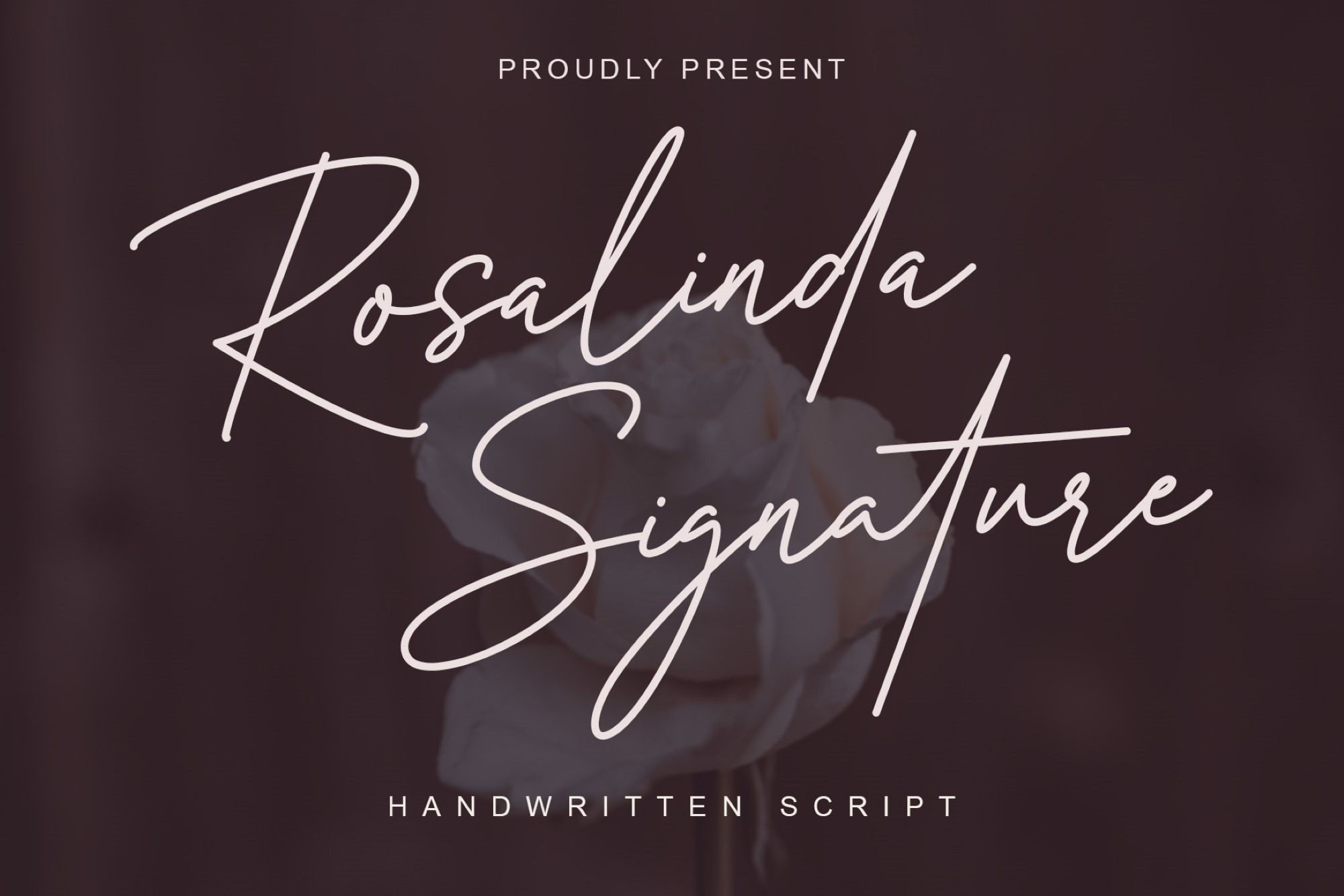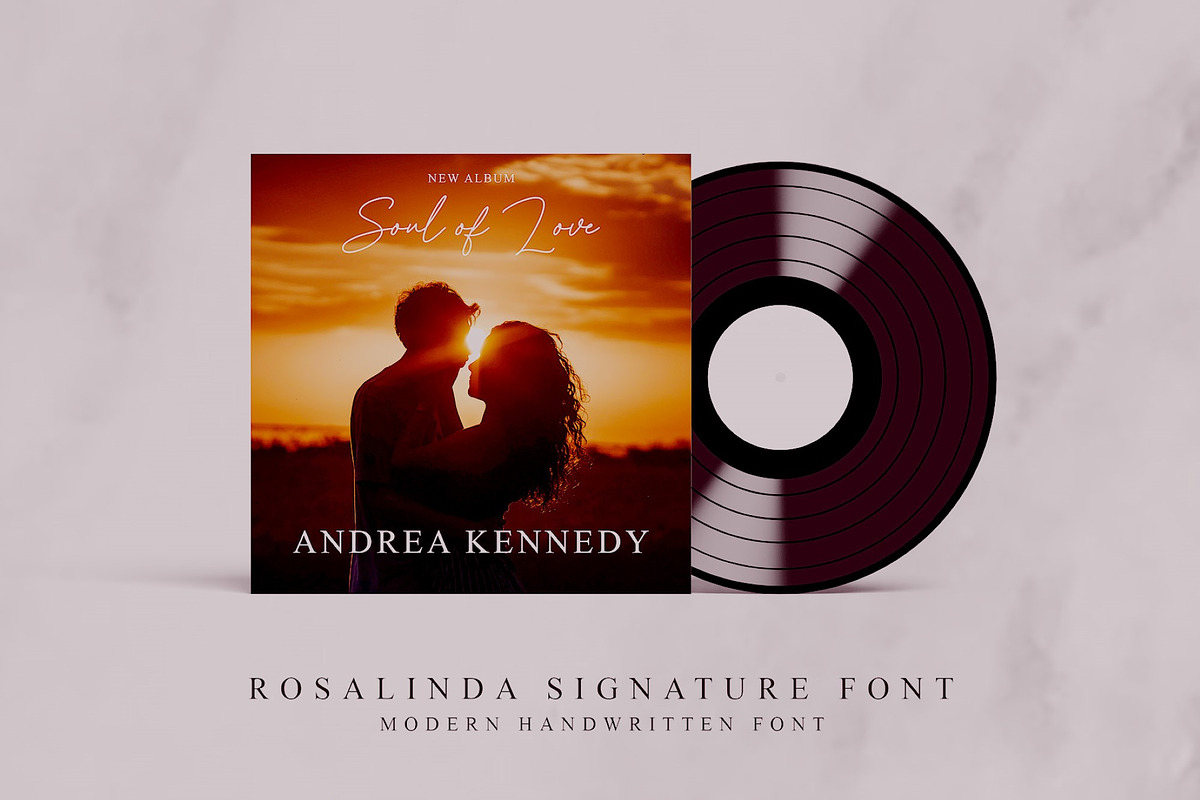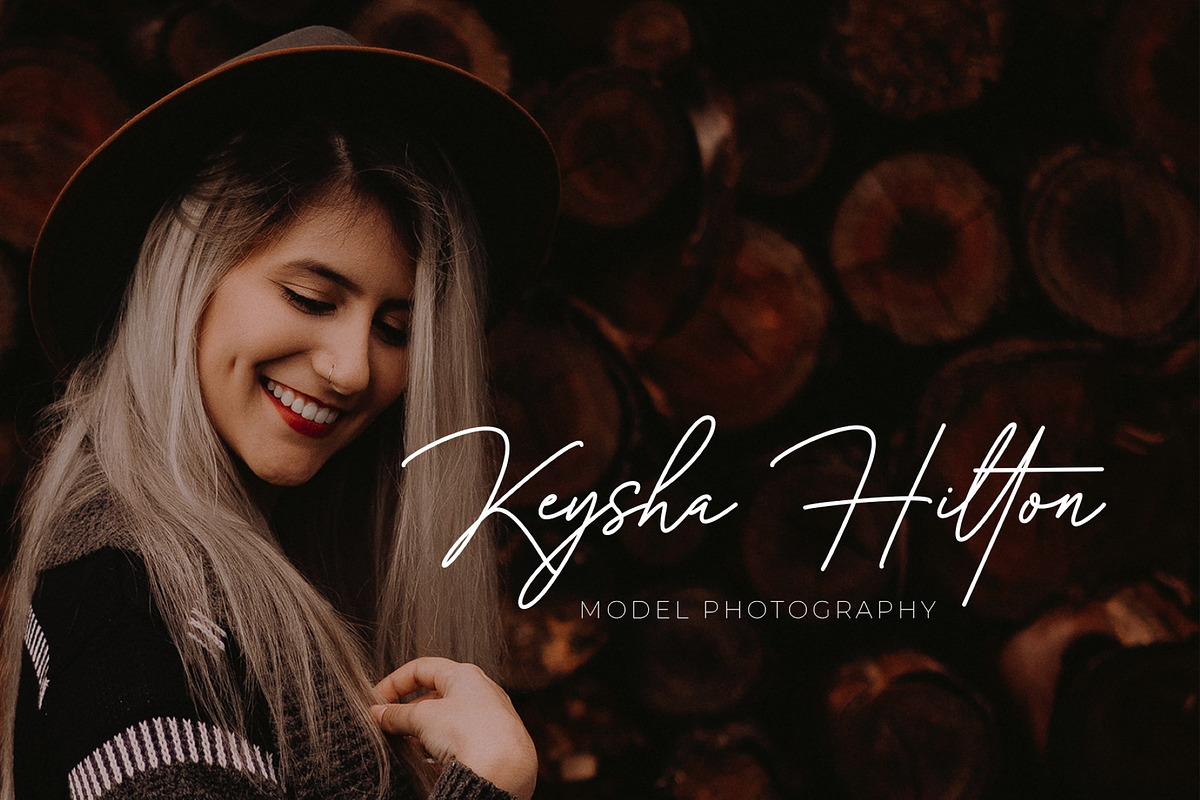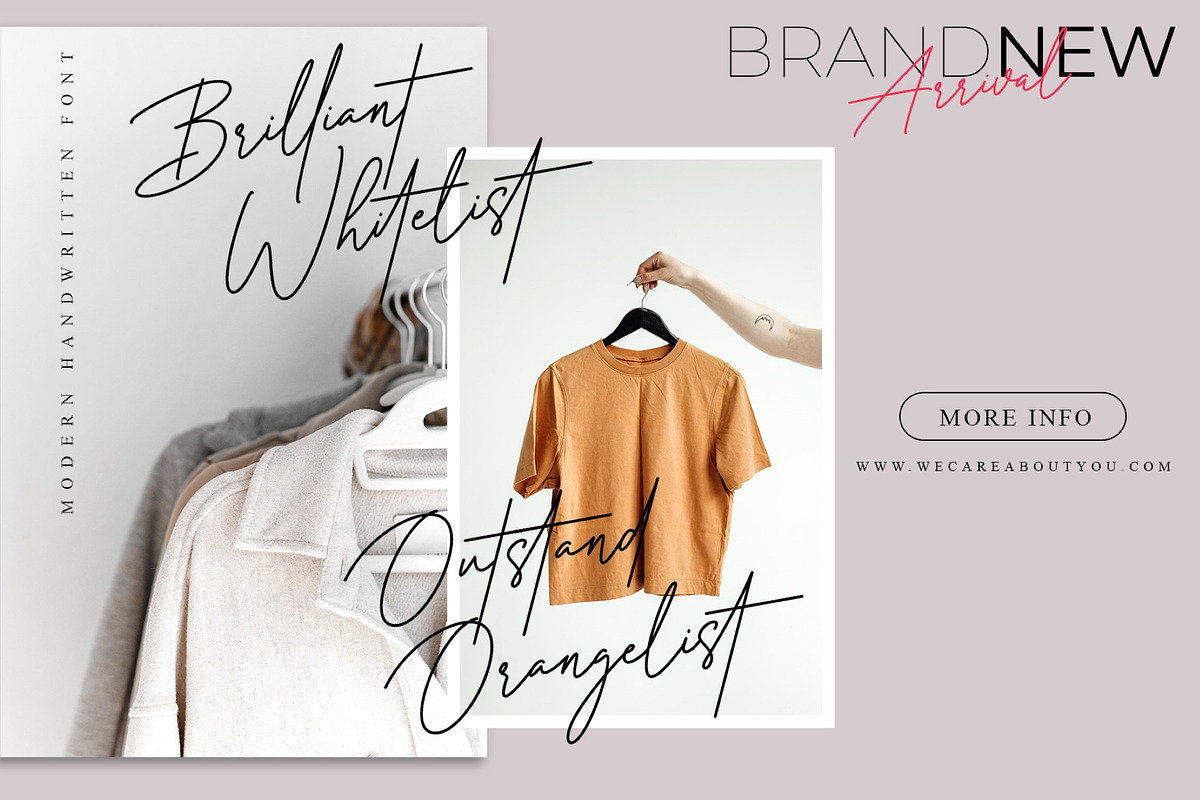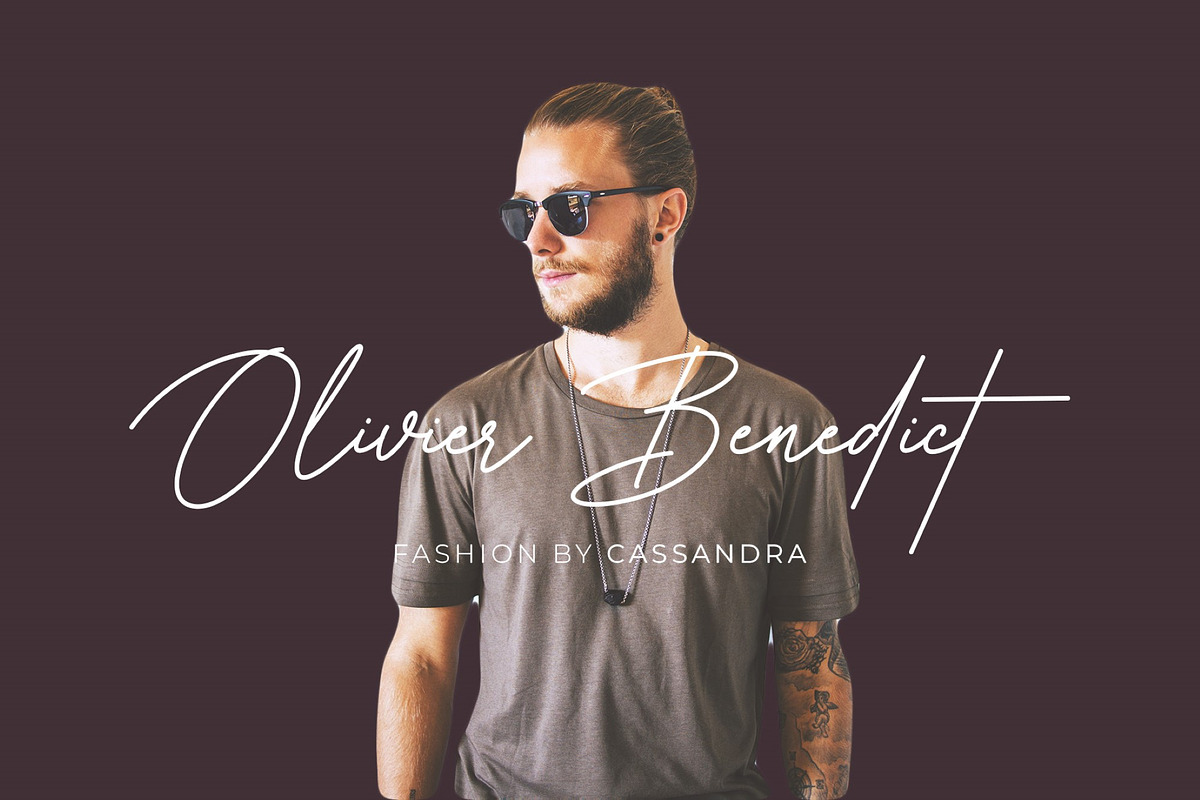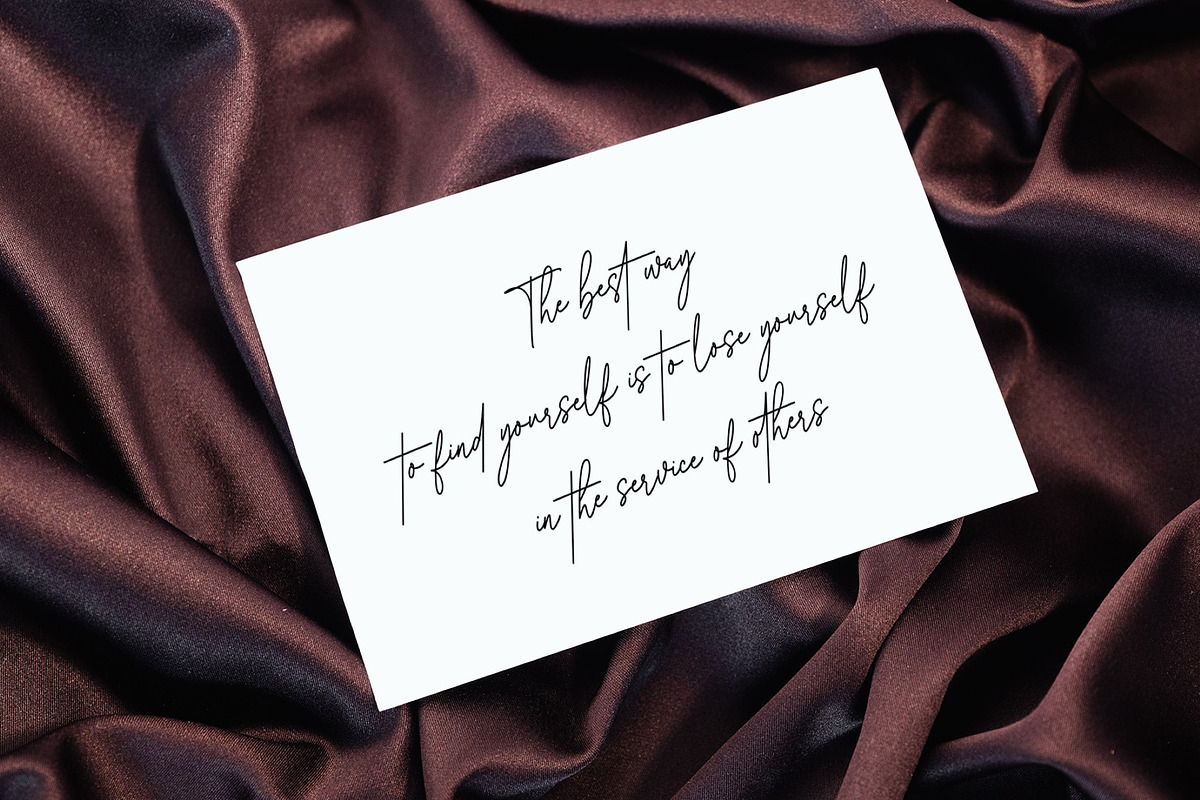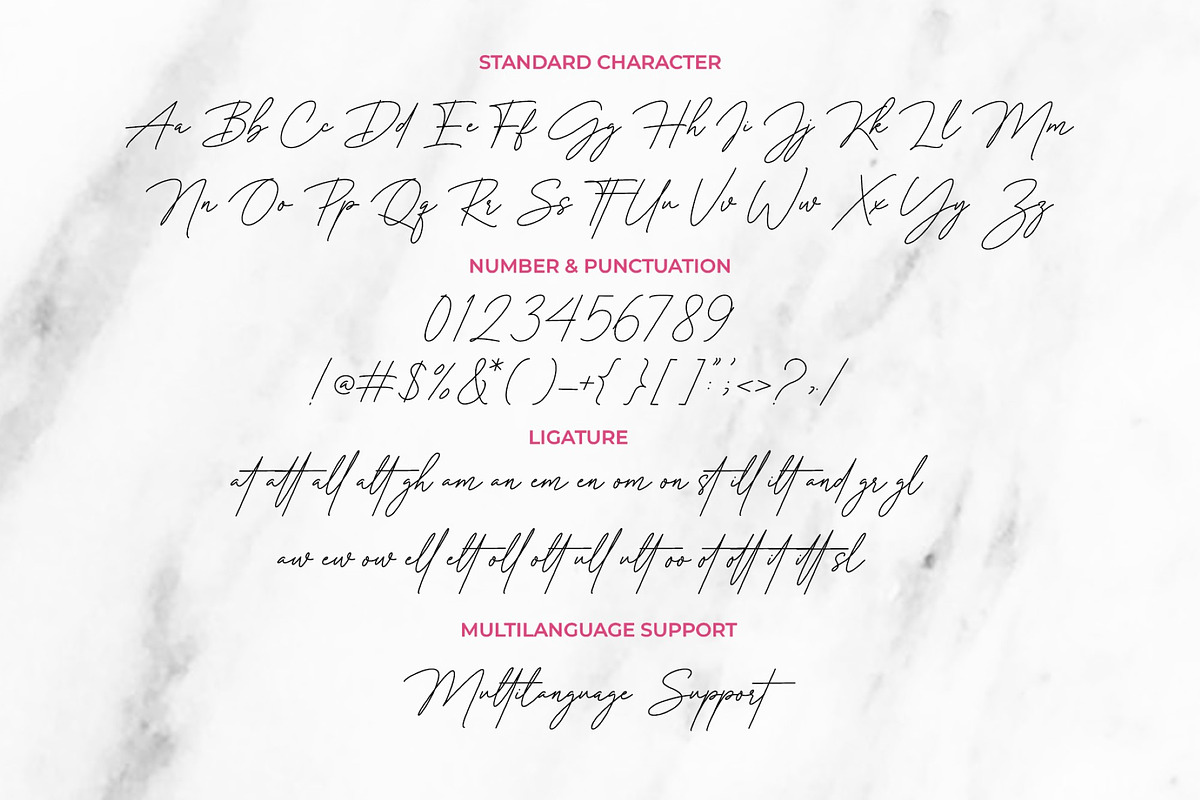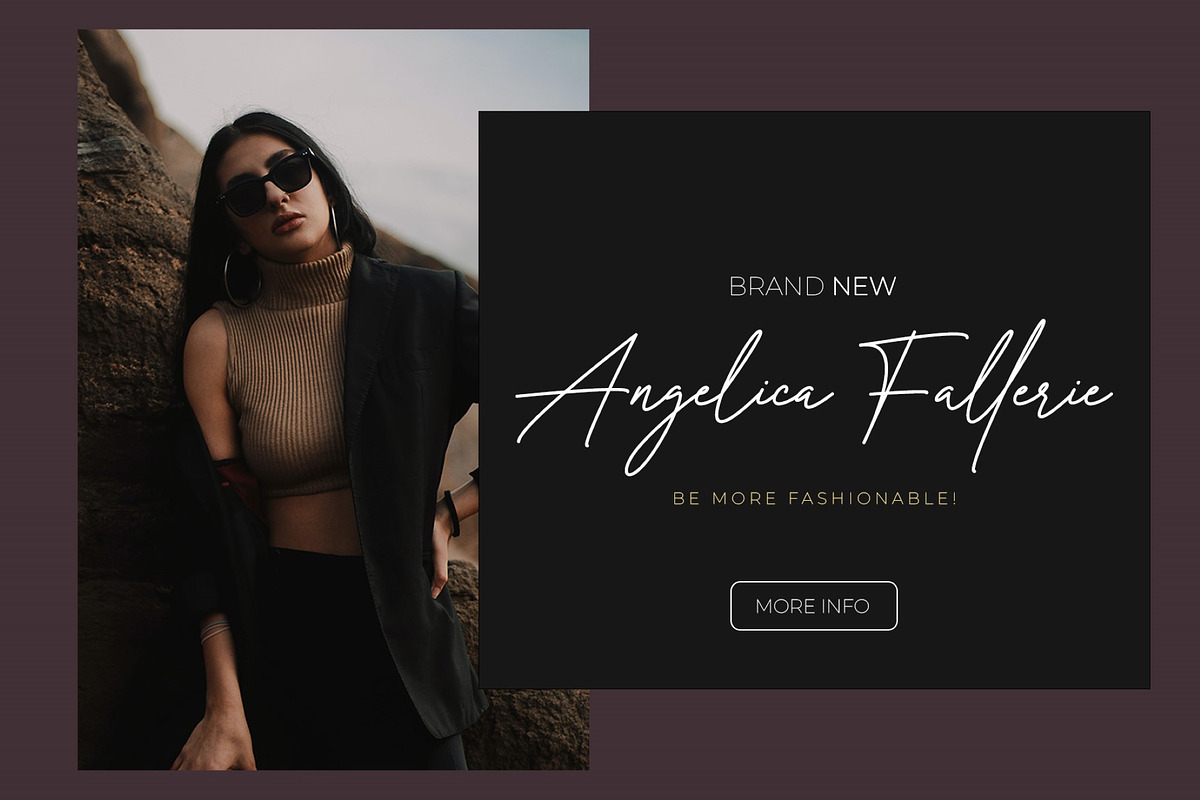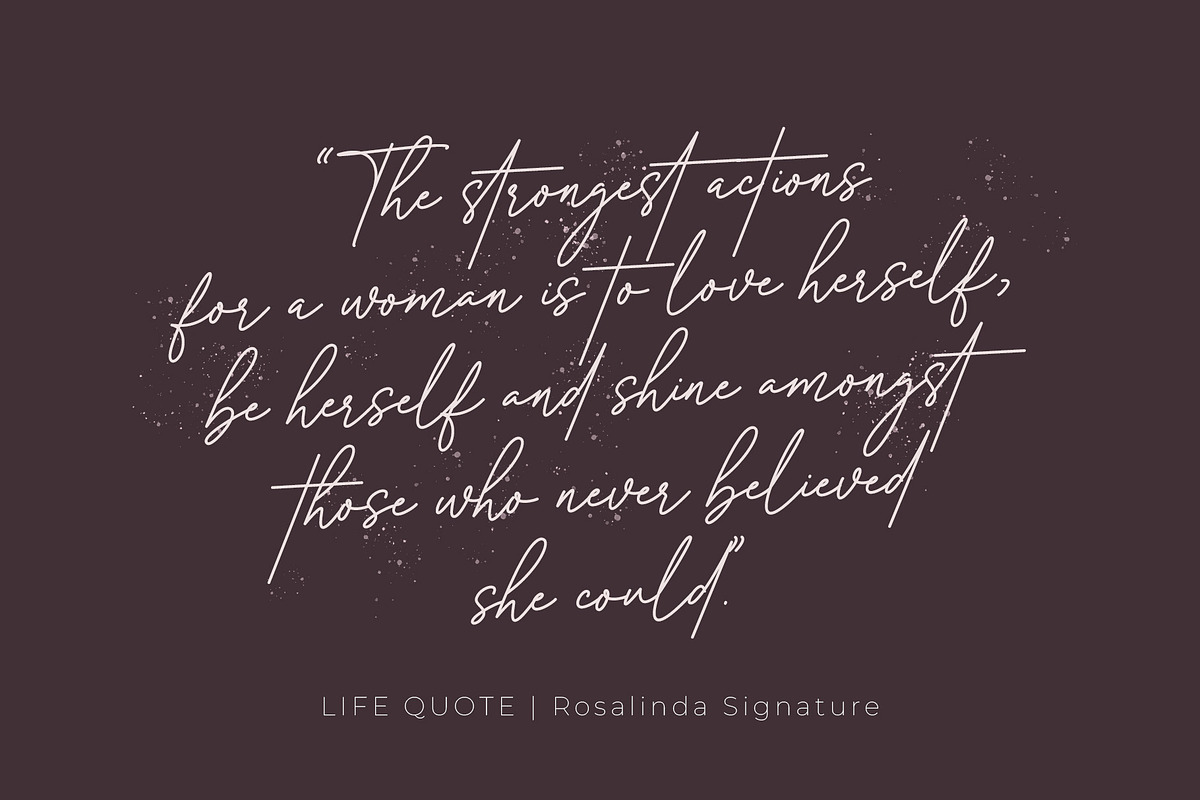
Rosalinda Signature Font
Rosalinda Signature is a modern handwritten script that has a feminine style, has a strong character in each letter so this font is very suitable for several things such as logo design, brand design, packaging, poster design, watermarks, fashion, photography, and others.
- 32 Ligatures